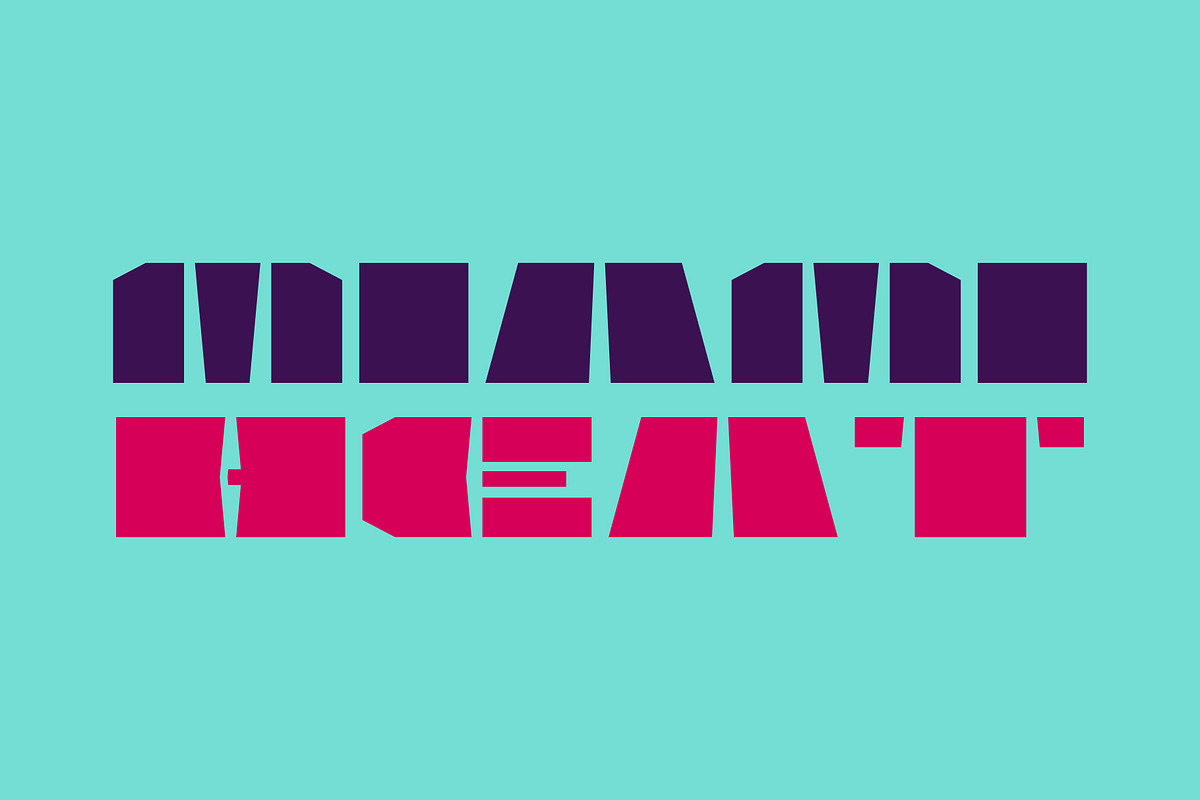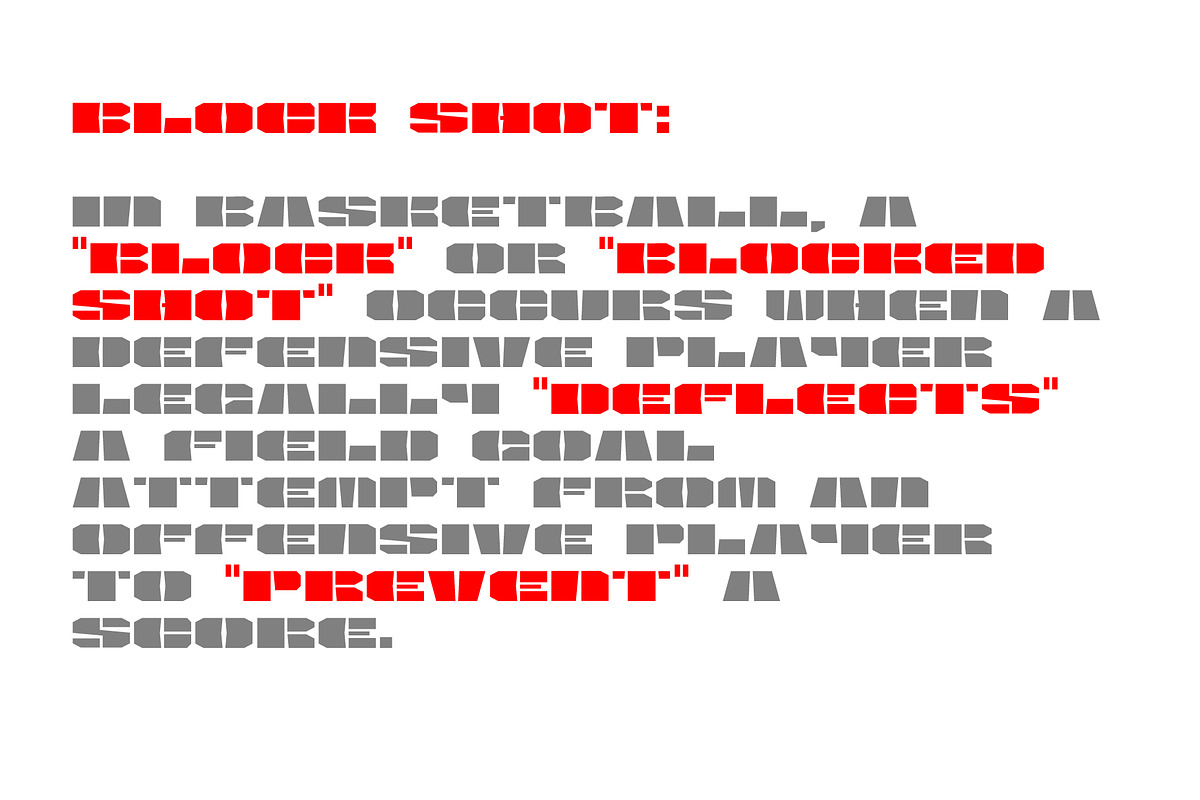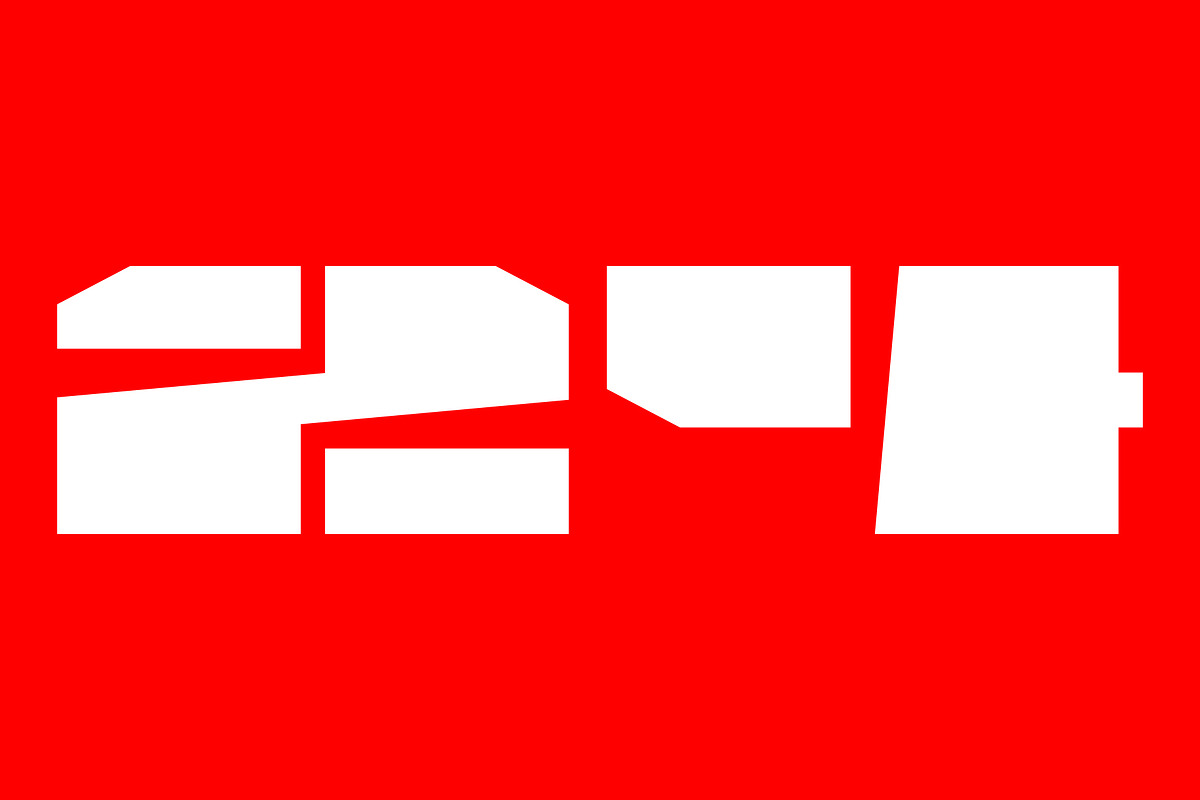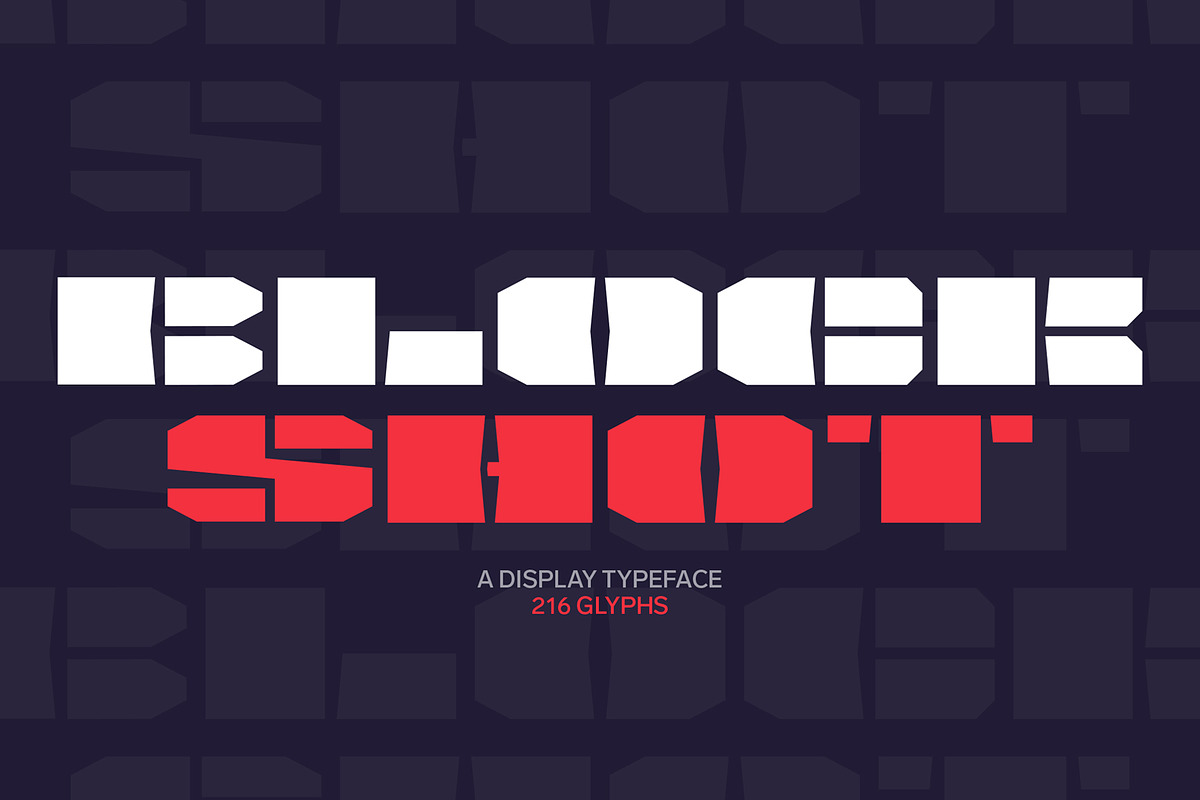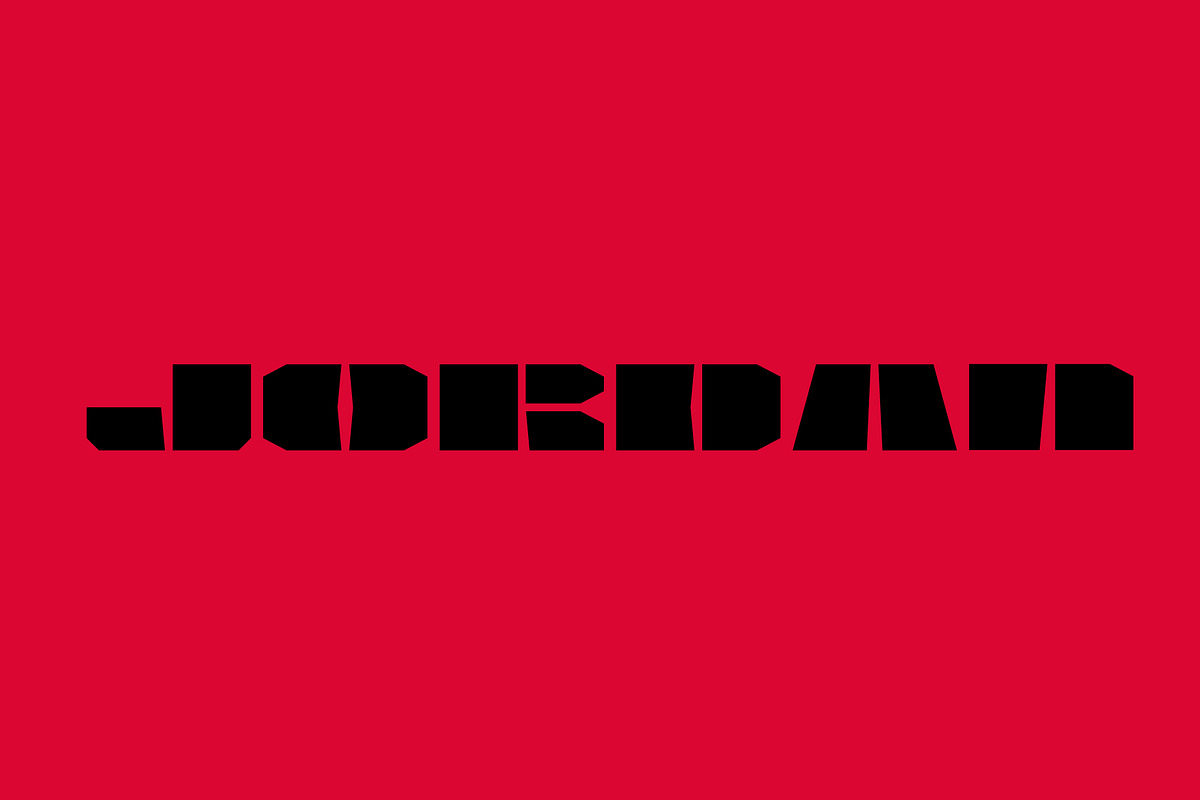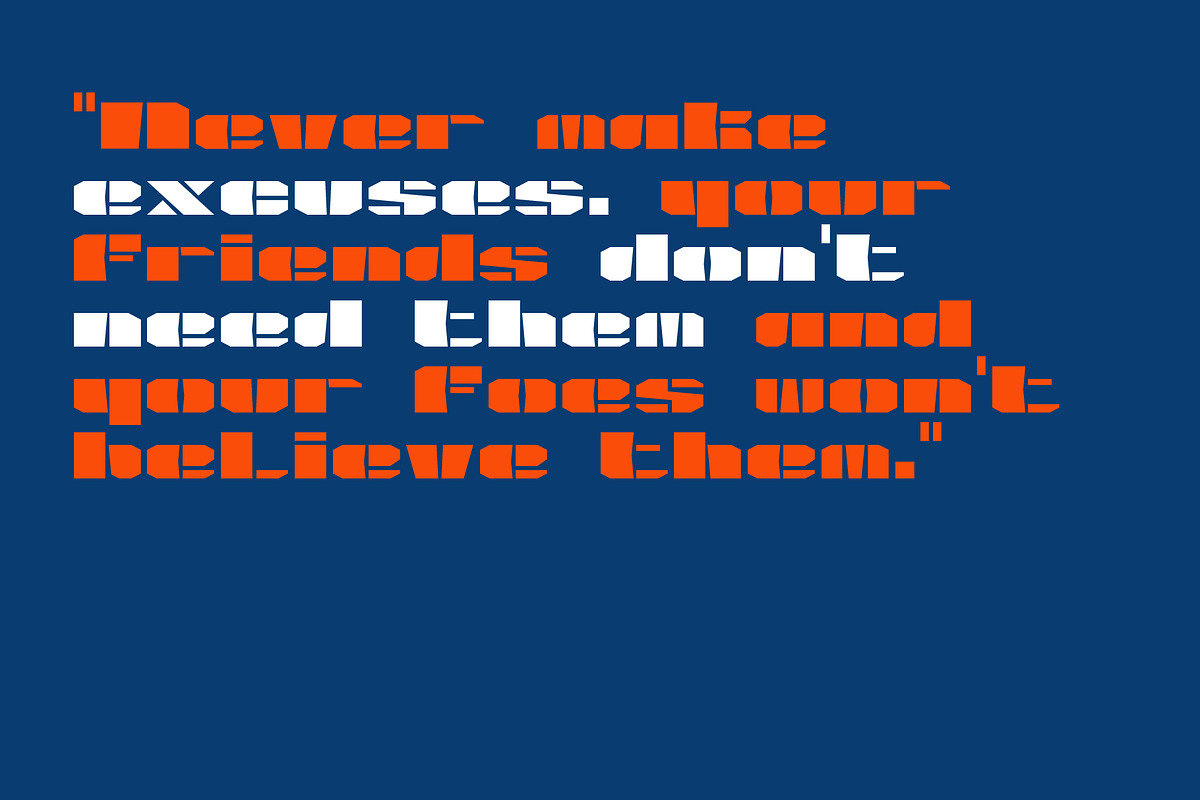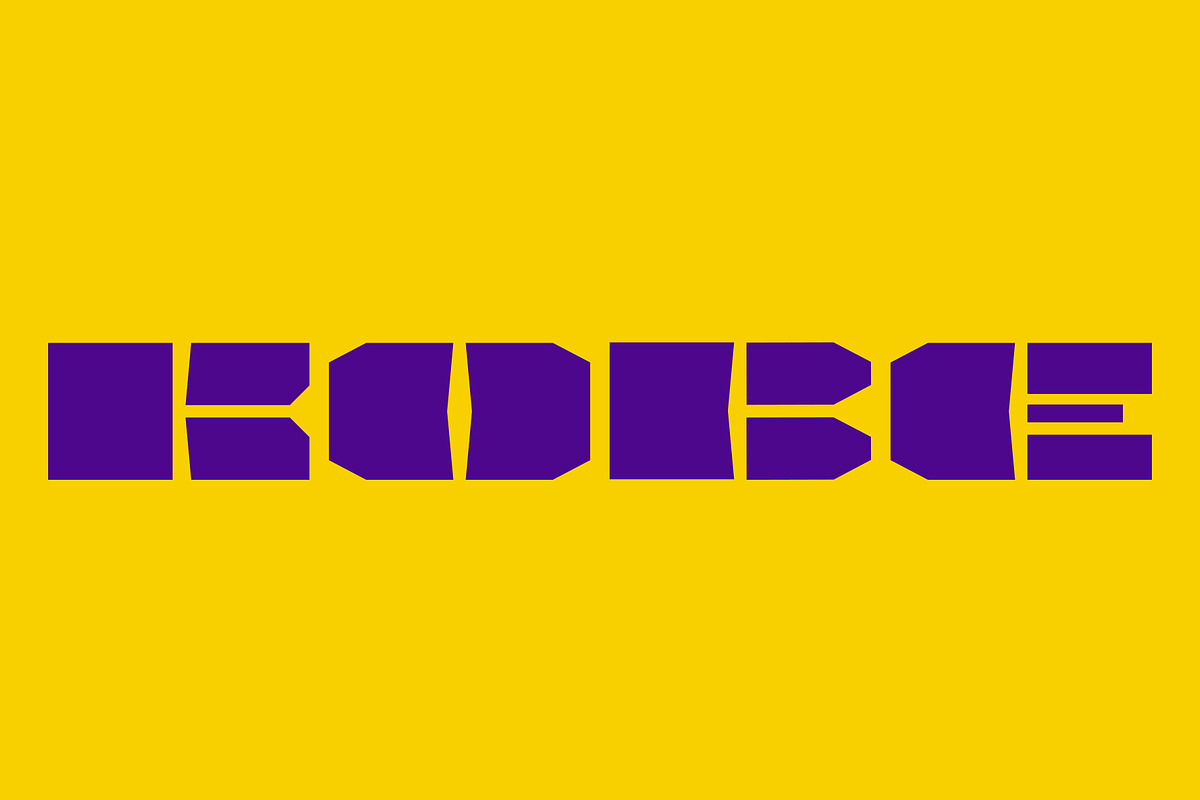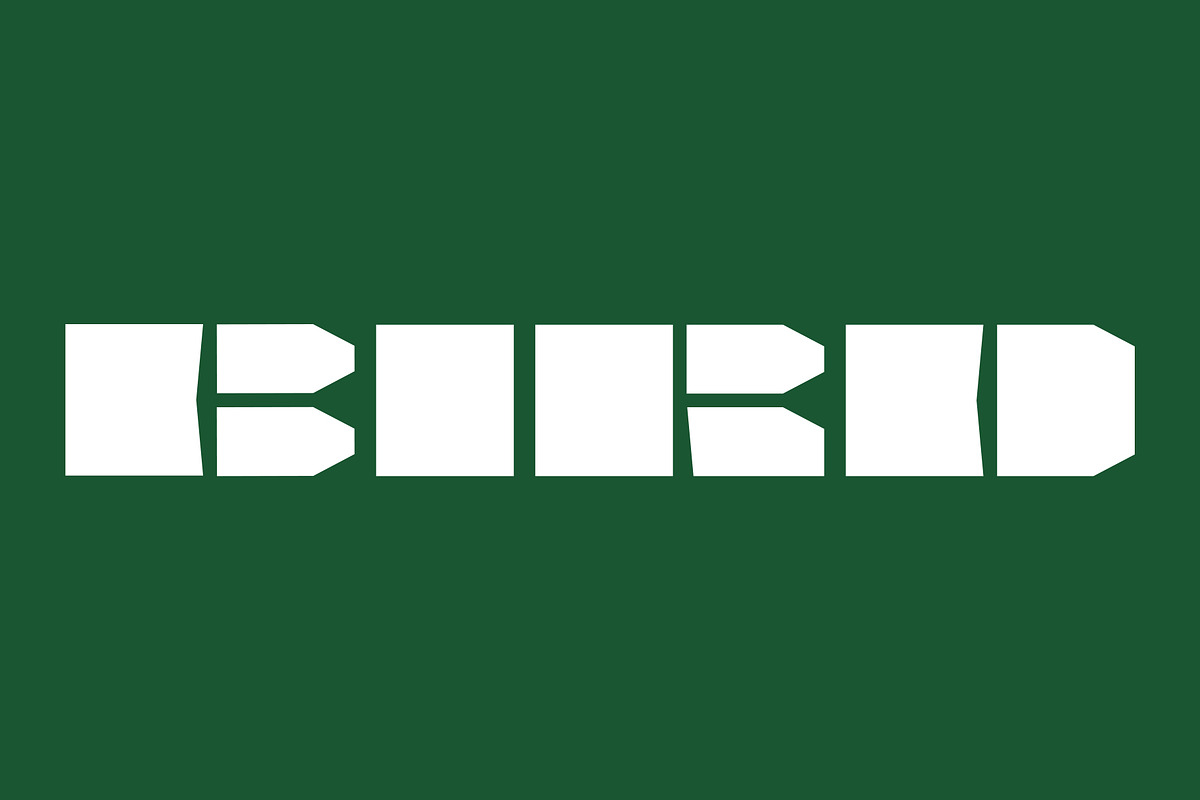
Srg-BlockShot display font
Srg-BlockShot display font A geometric & block based typeface.
Specifically designed for display use, great for titles, logotypes, monograms and short texts, it includes 211 glyphs, ASCII / ISO 8859-1 (Latin-1)